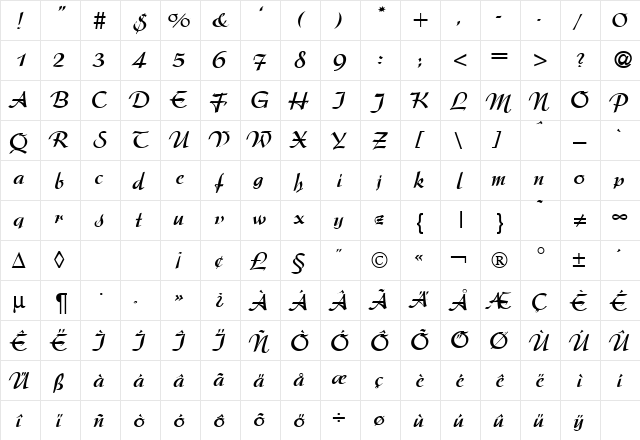
Argentine Bold
Design Context for Argentine Typeface
Argentine is a composed and adaptable typeface that performs quietly and consistently across a wide range of design contexts. The heavy weight commands attention and anchors typographic hierarchies.